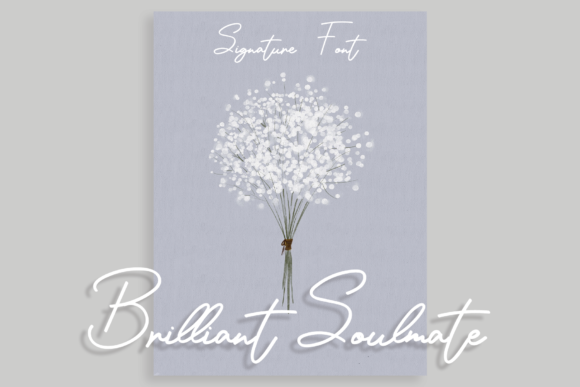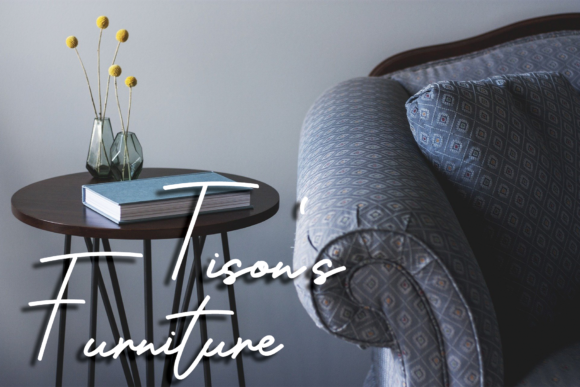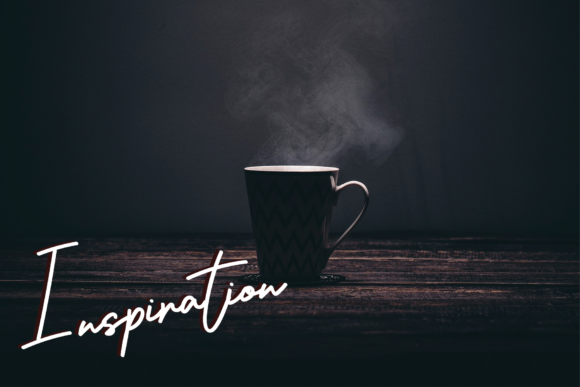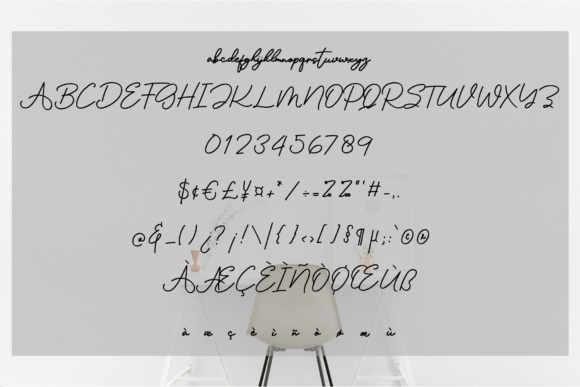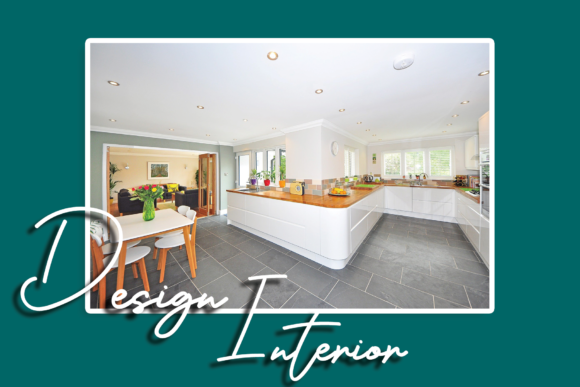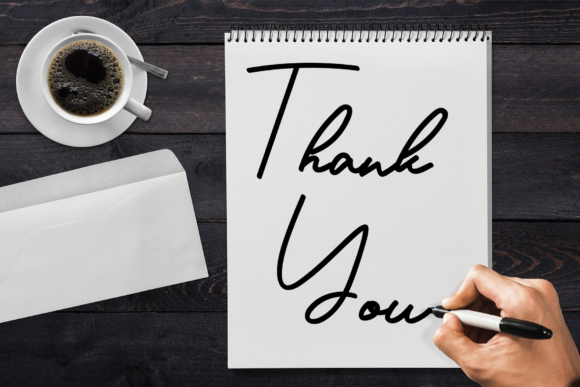
Brilliant Soulmate Font
About Brilliant Soulmate Font
Brilliant Soulmate is a fashionable script font. This font is neatly crafted and highly detailed. Whatever the topic, this font will be a wonderful asset to your font library, as it has the potential to enhance any creation.